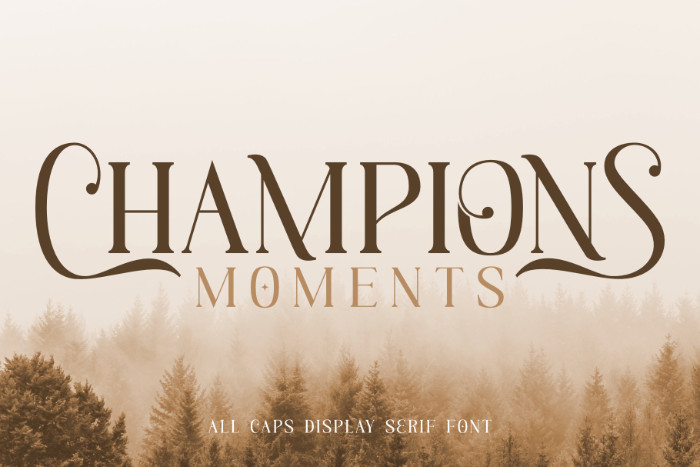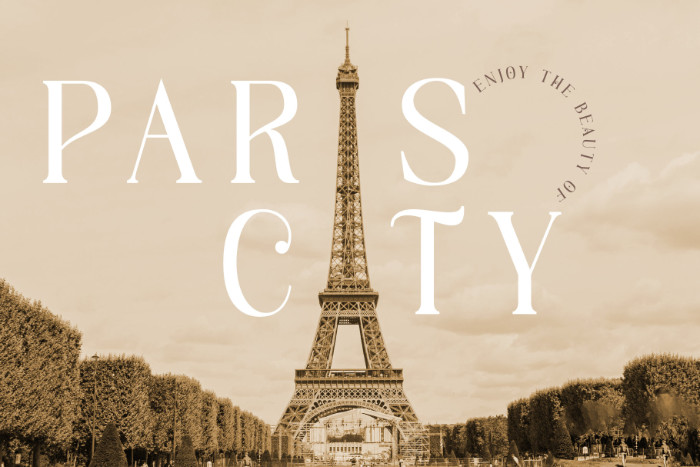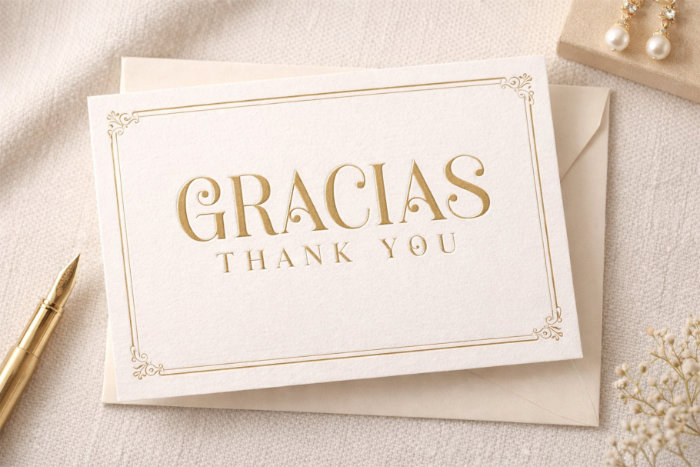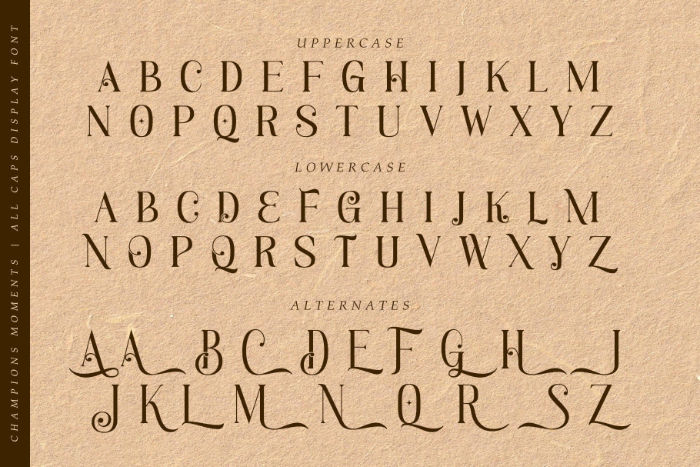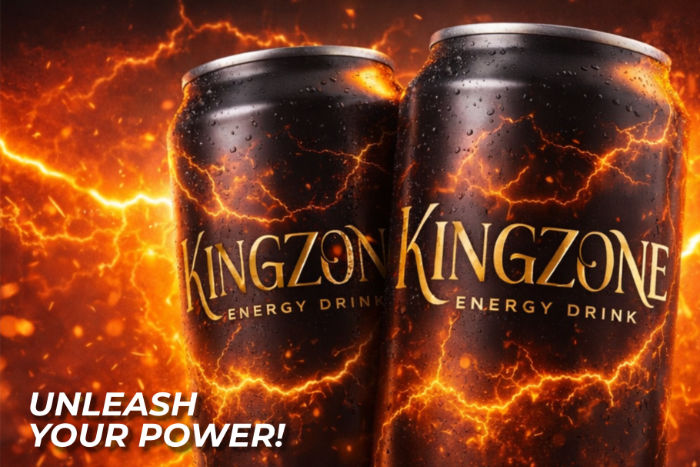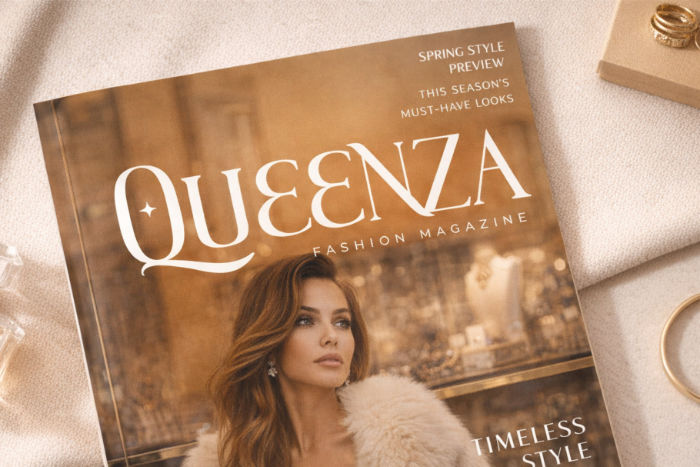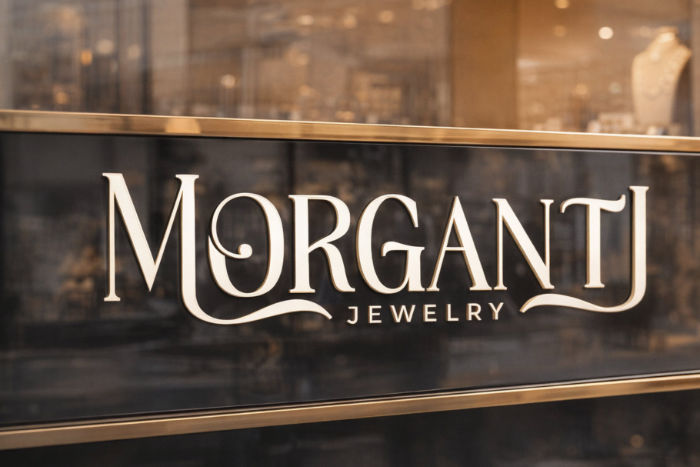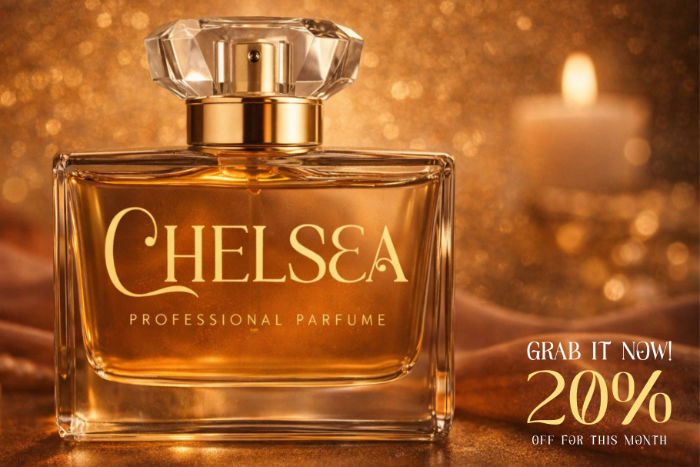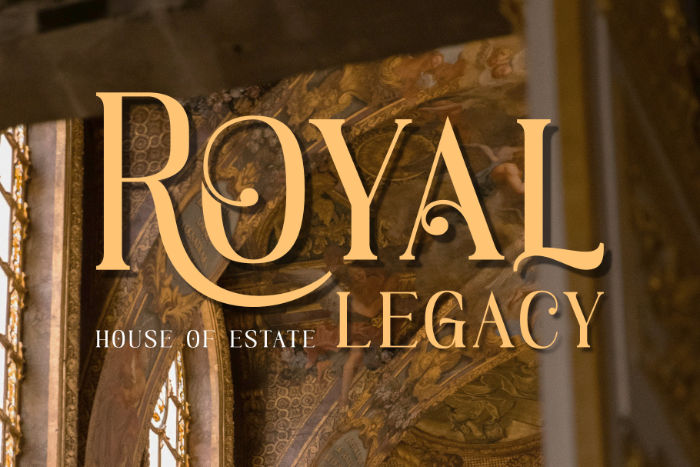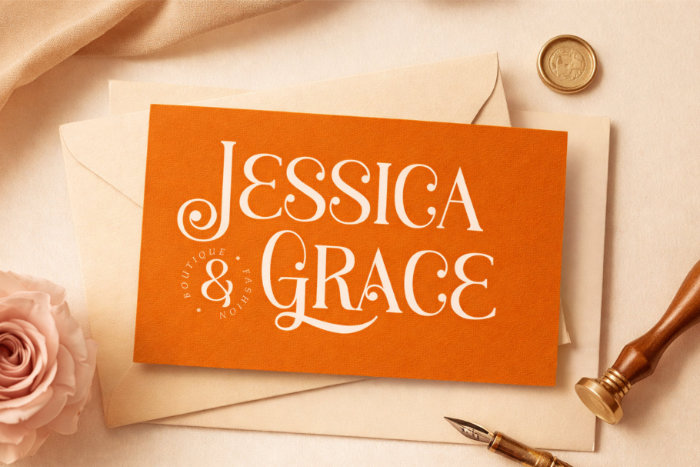
Champions Moments
Champions Moments is a classic, elegant, all-caps display font designed for prestige and luxury. It features a refined architectural structure paired with beautiful, flowing curves, making it a perfect choice for high-end visual identities.
What distinguishes this typeface is its set of unique alternates. These creative variations allow designers to break away from standard letterforms to create bespoke, custom-feeling typography.
This font is perfect for branding, jewelry, fashion, stationery, marketing and much more!
Whether you are building a heritage brand or a modern startup, Champions Moments ensures your message is delivered with grace and command. It is the ultimate tool for turning simple text into a celebrated masterpiece.